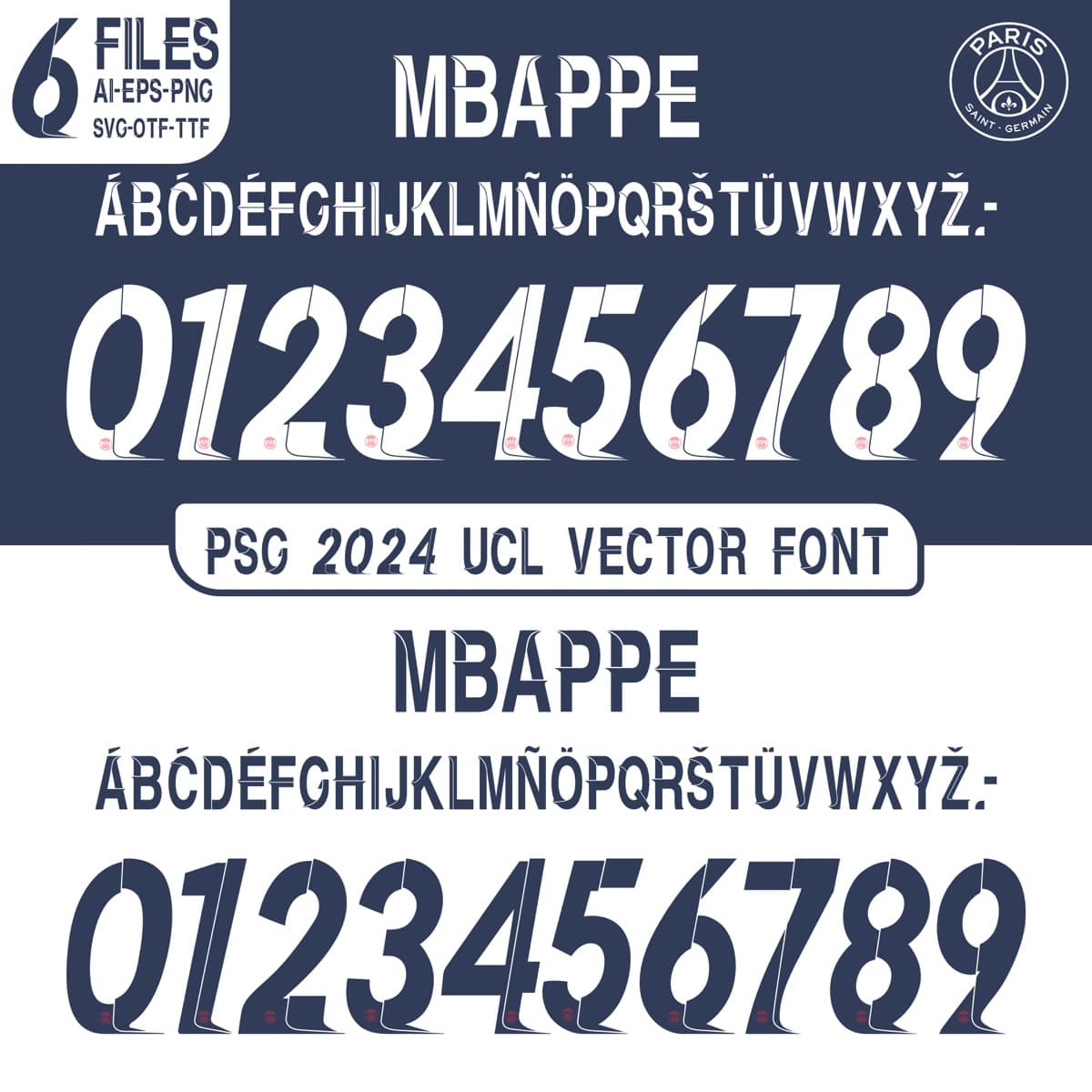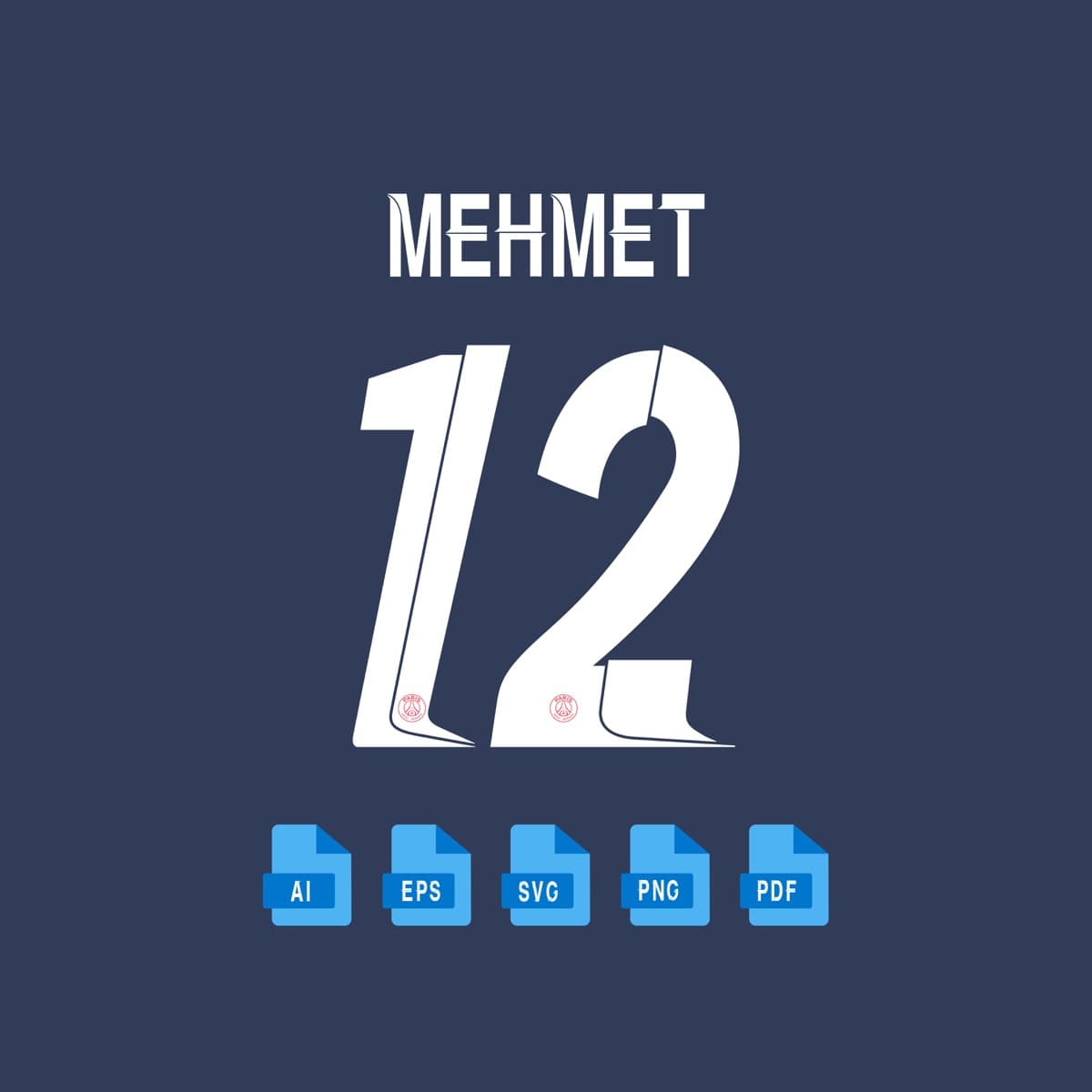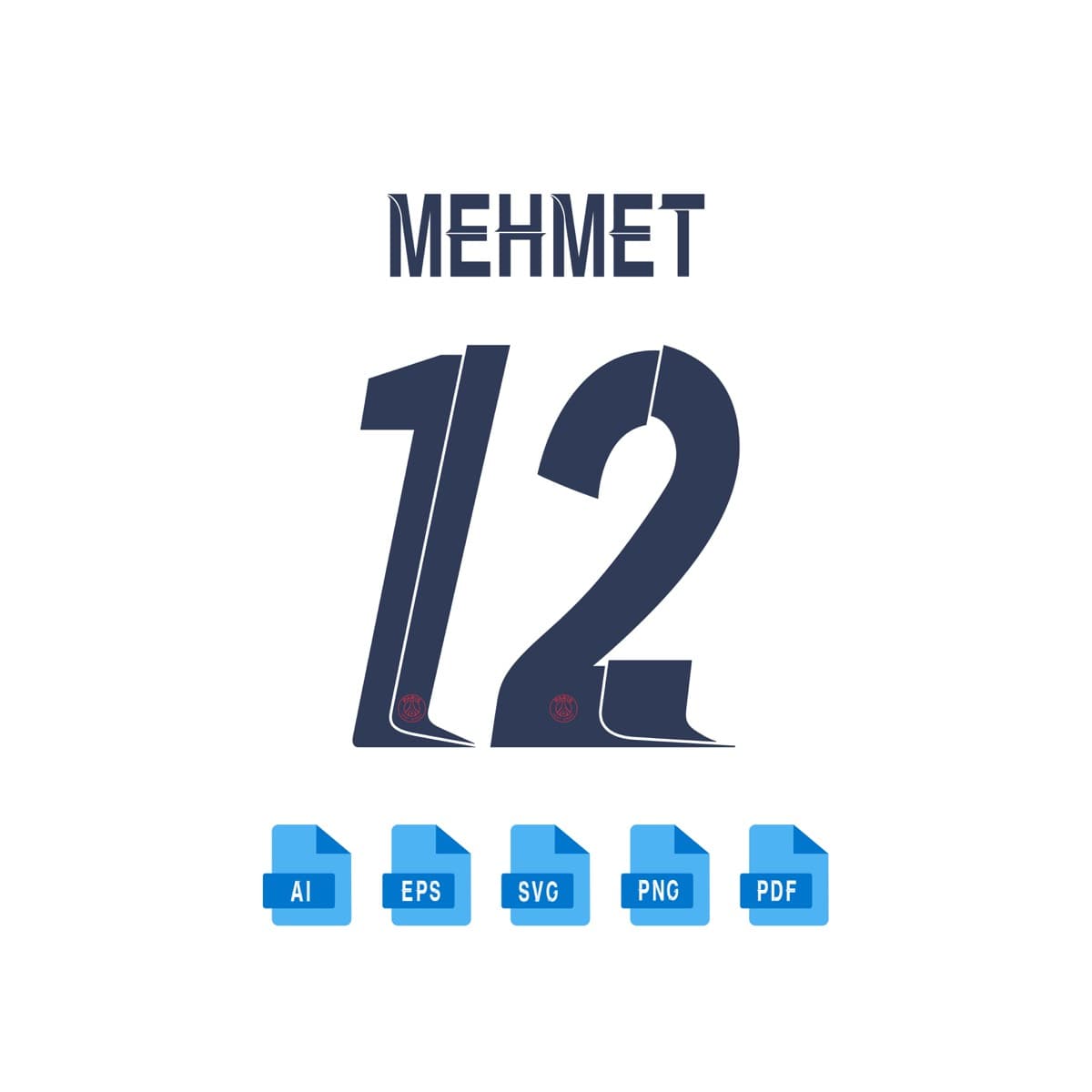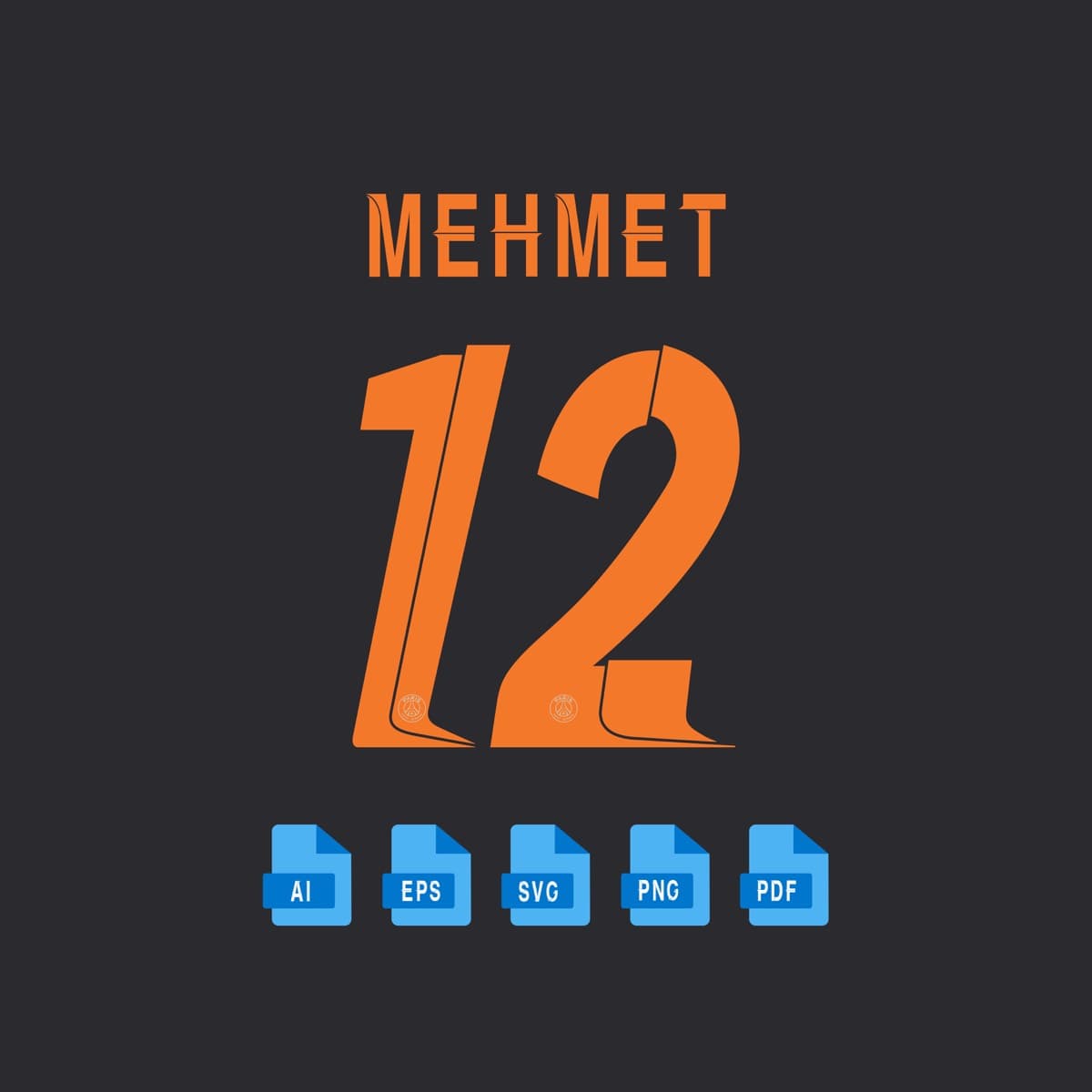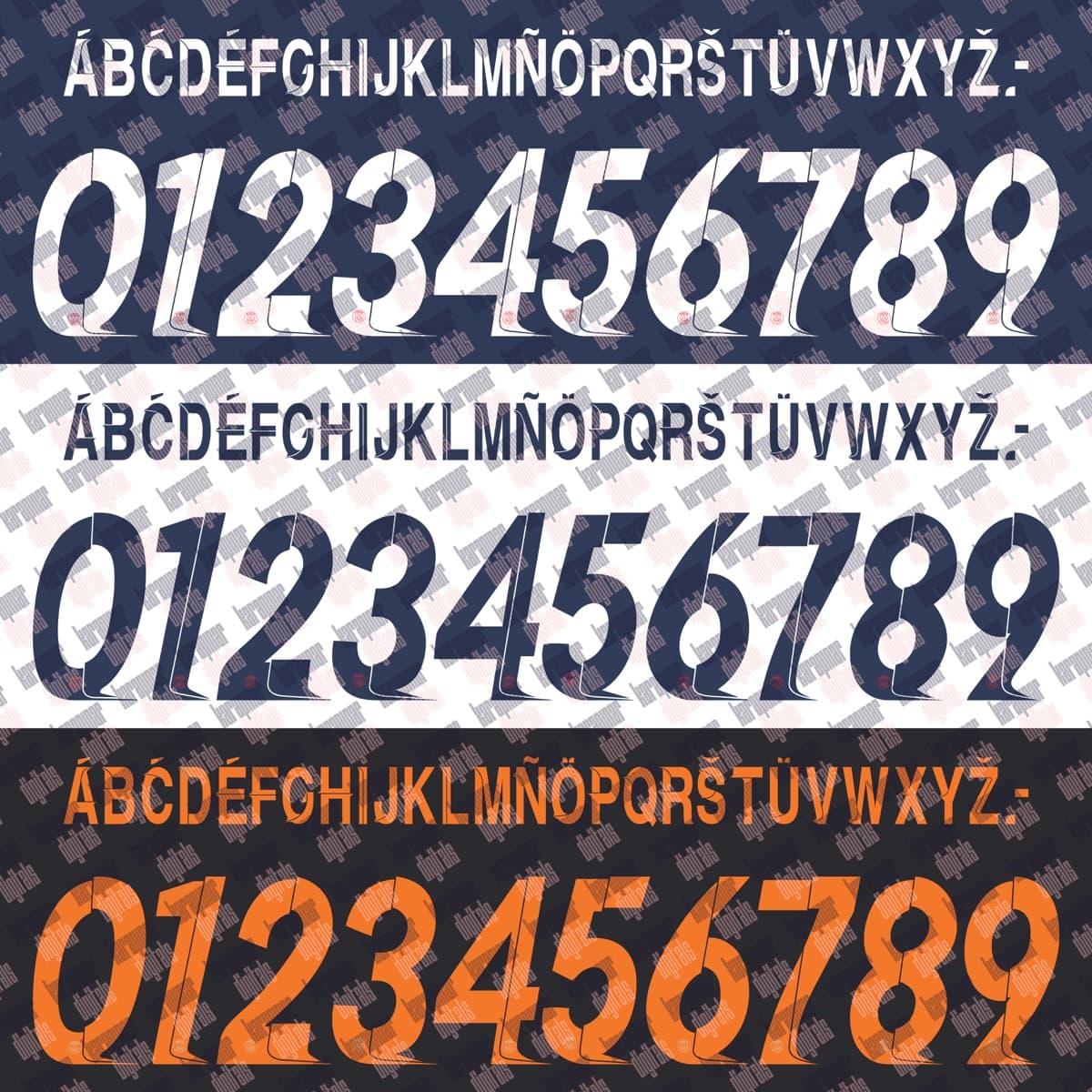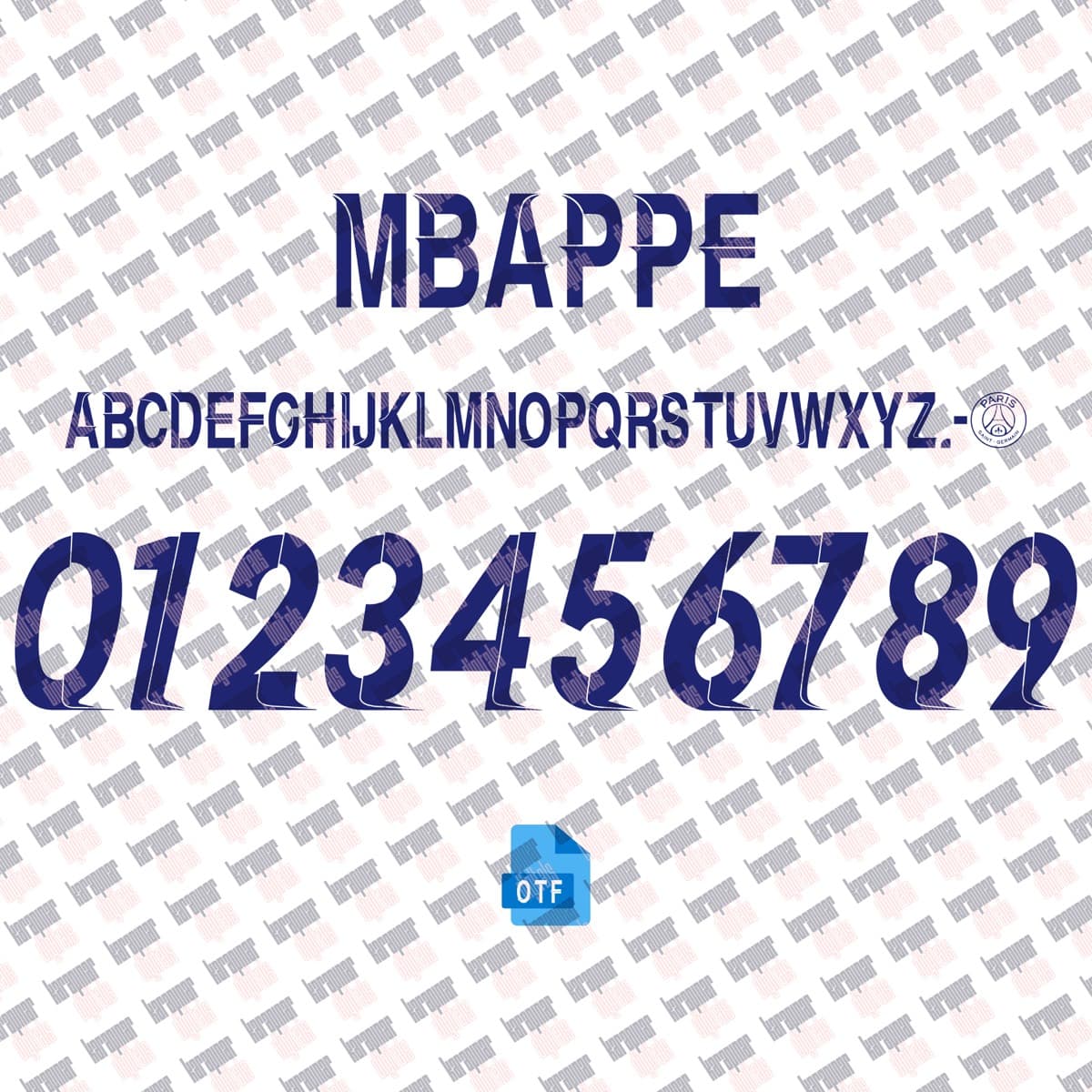
PSG UCL 2024
Paris Saint-Germain · 2024
PSG UCL 2024
A set inspired by the Paris Saint-Germain 2024 jersey typography, with a name and number system redrawn for print and screen. Original curves, consistent weight and a complete 0–9 numeral family.